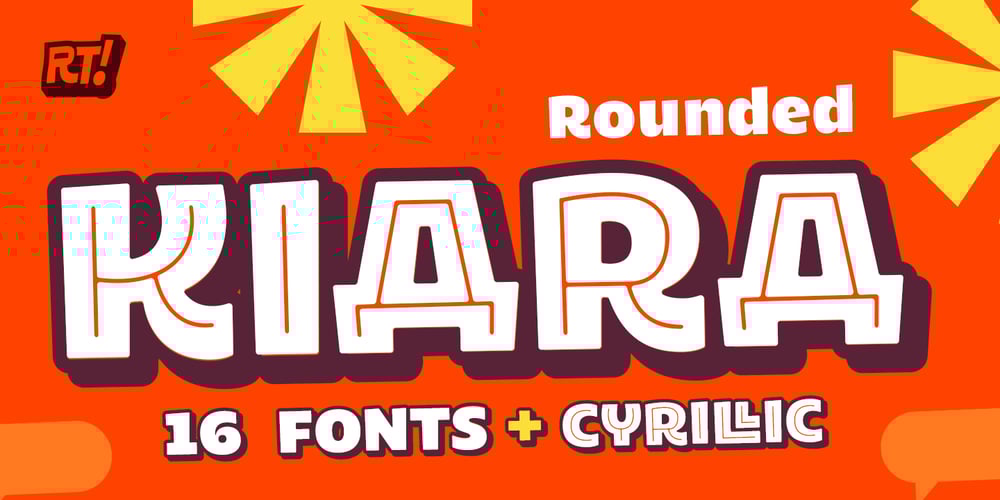
Kiara Rounded
Kiara Rounded font
Kiara Rounded Font Family was designed by Rodrigo Araya Salas and published by RodrigoTypo. Kiara Rounded contains 16 styles and family package options. Kiara Rounded is a variant of “Kiara” that contains in this family the Cyrillic alphabet in all its weights in addition to having alternatives and the “Rough” version, a very complete family especially for titles.